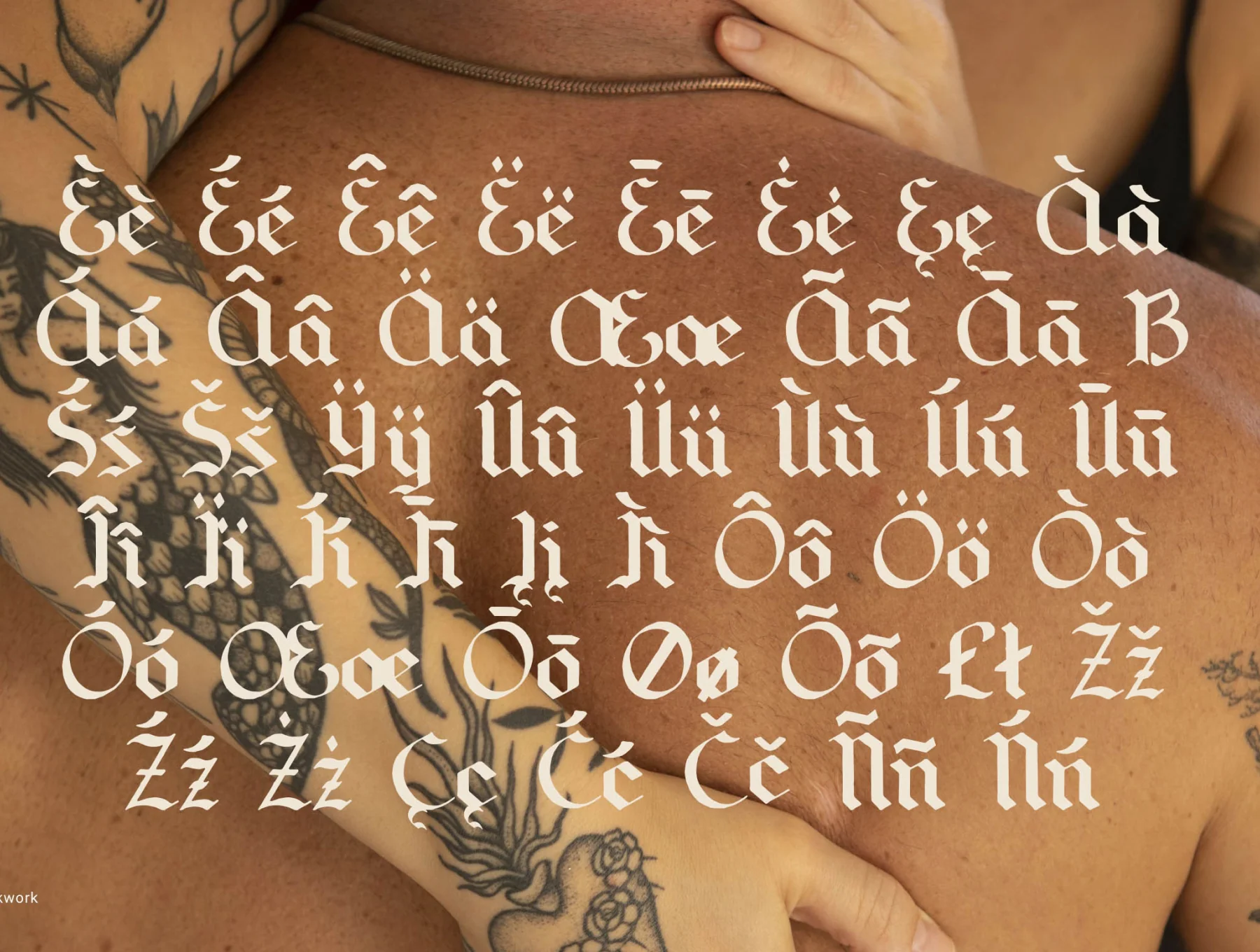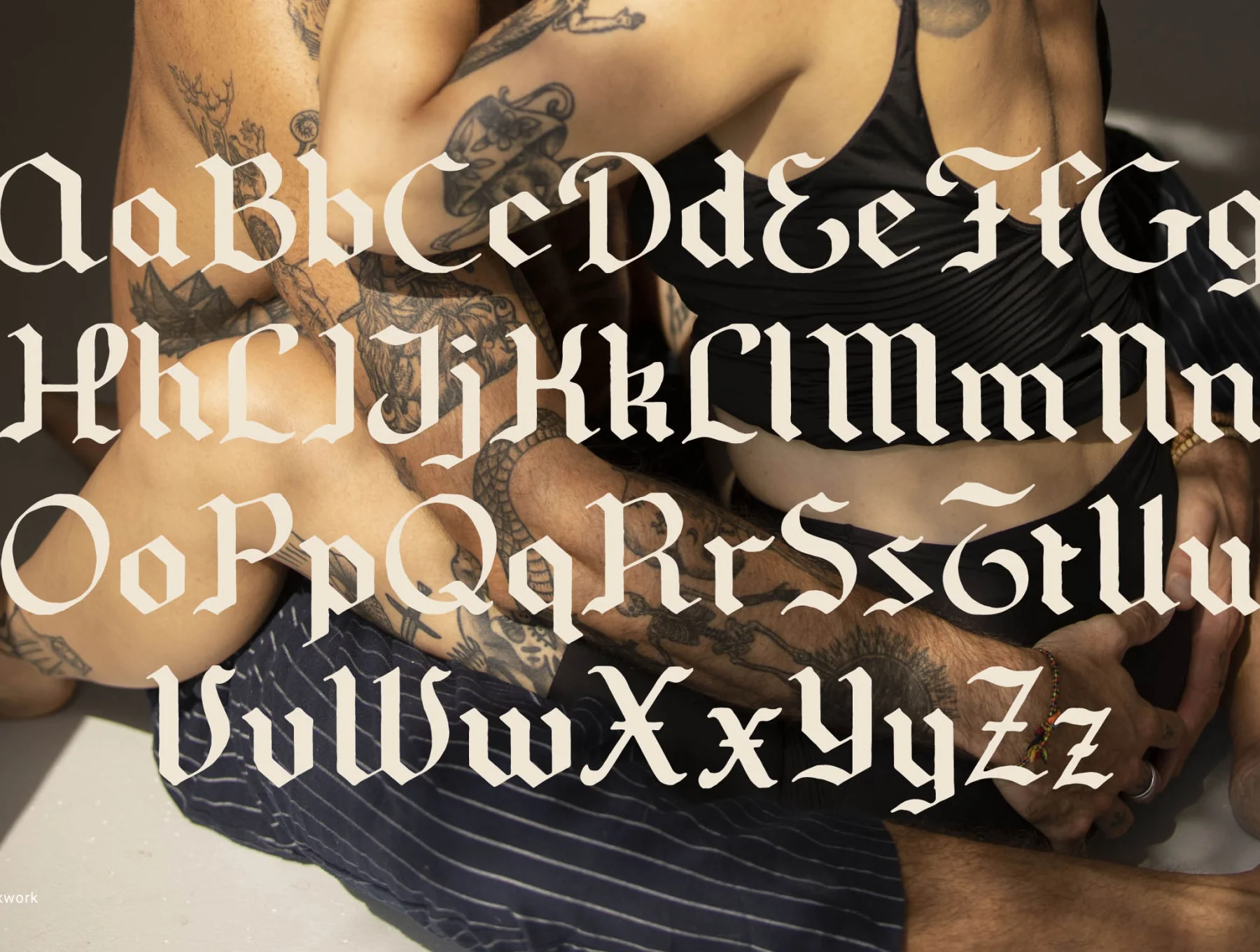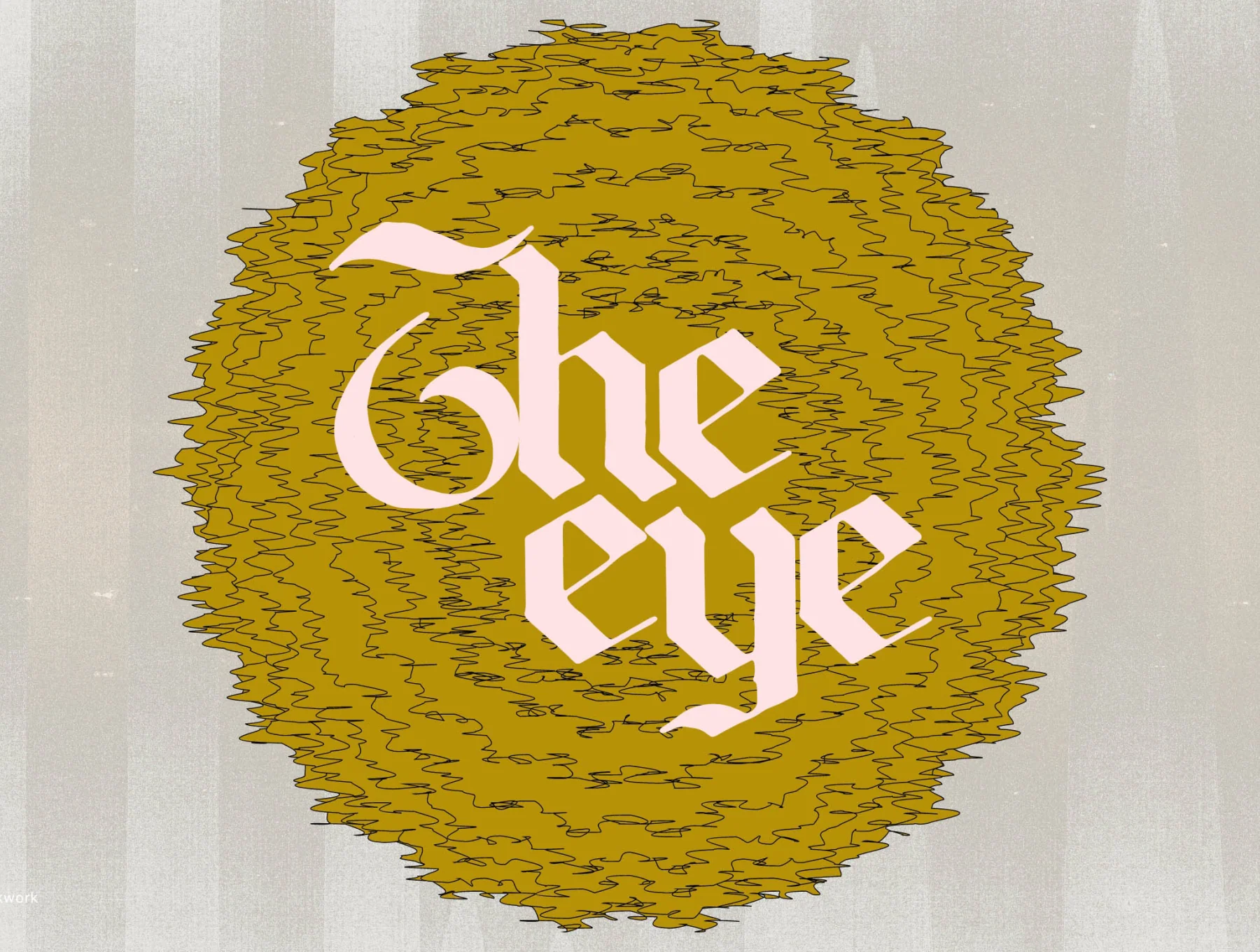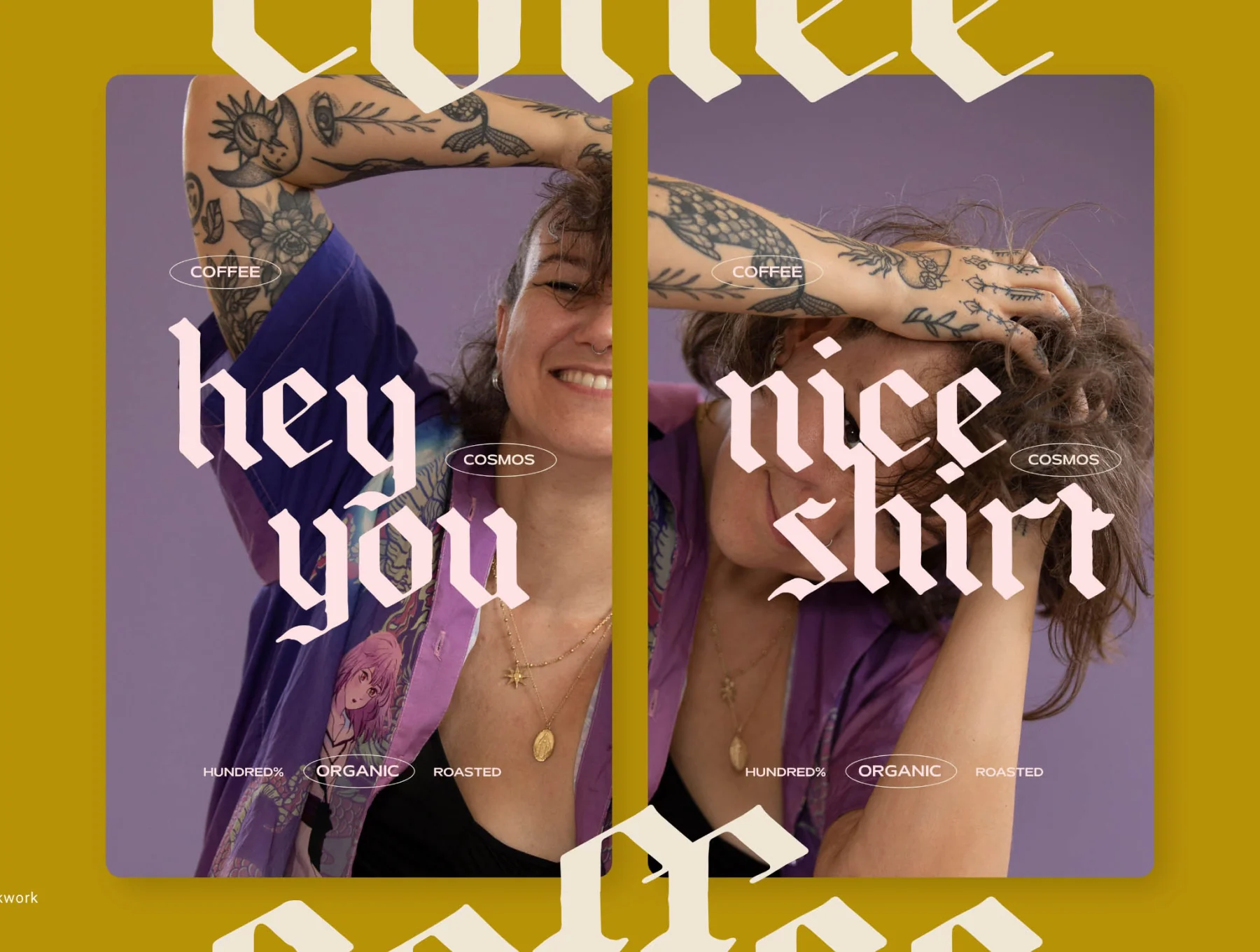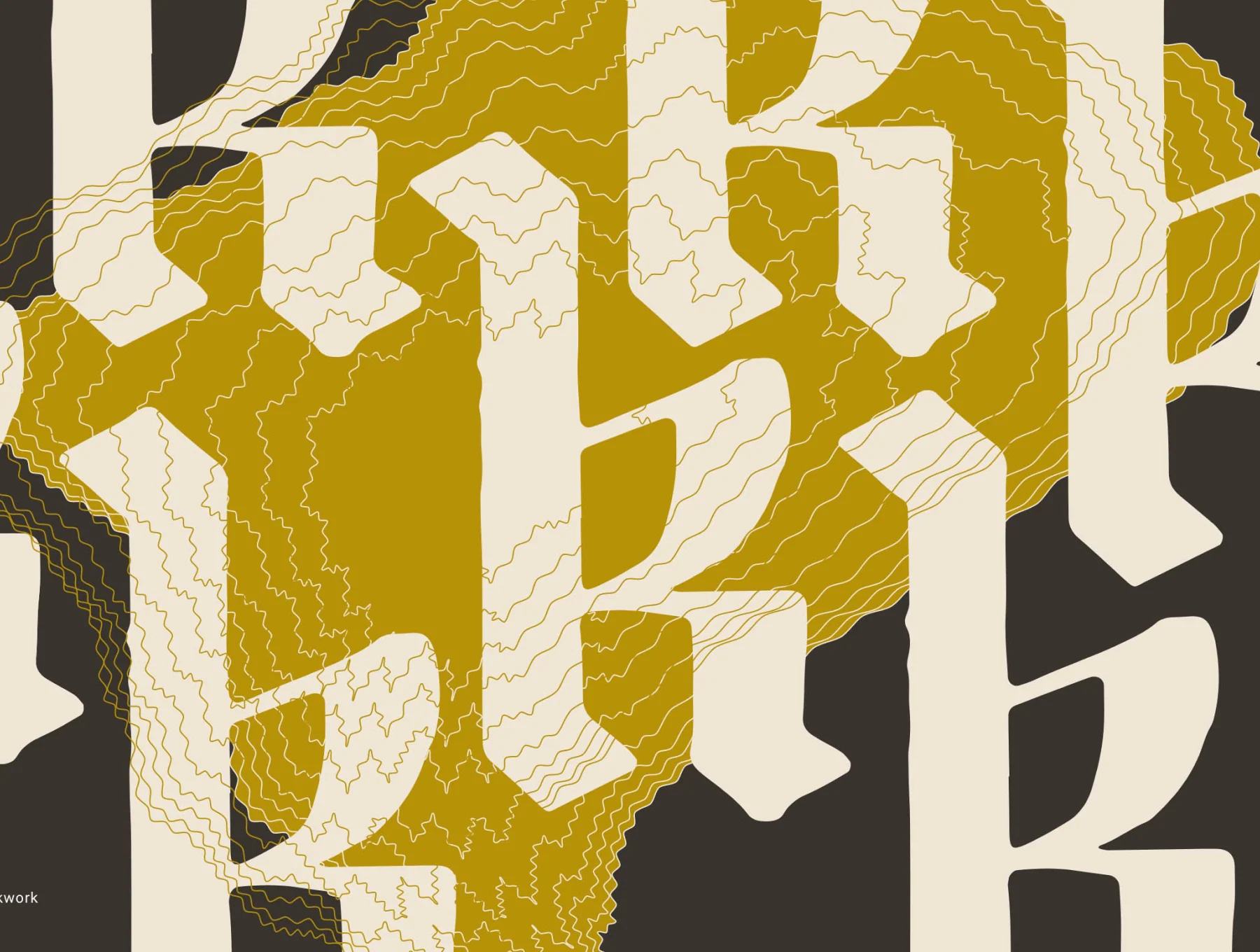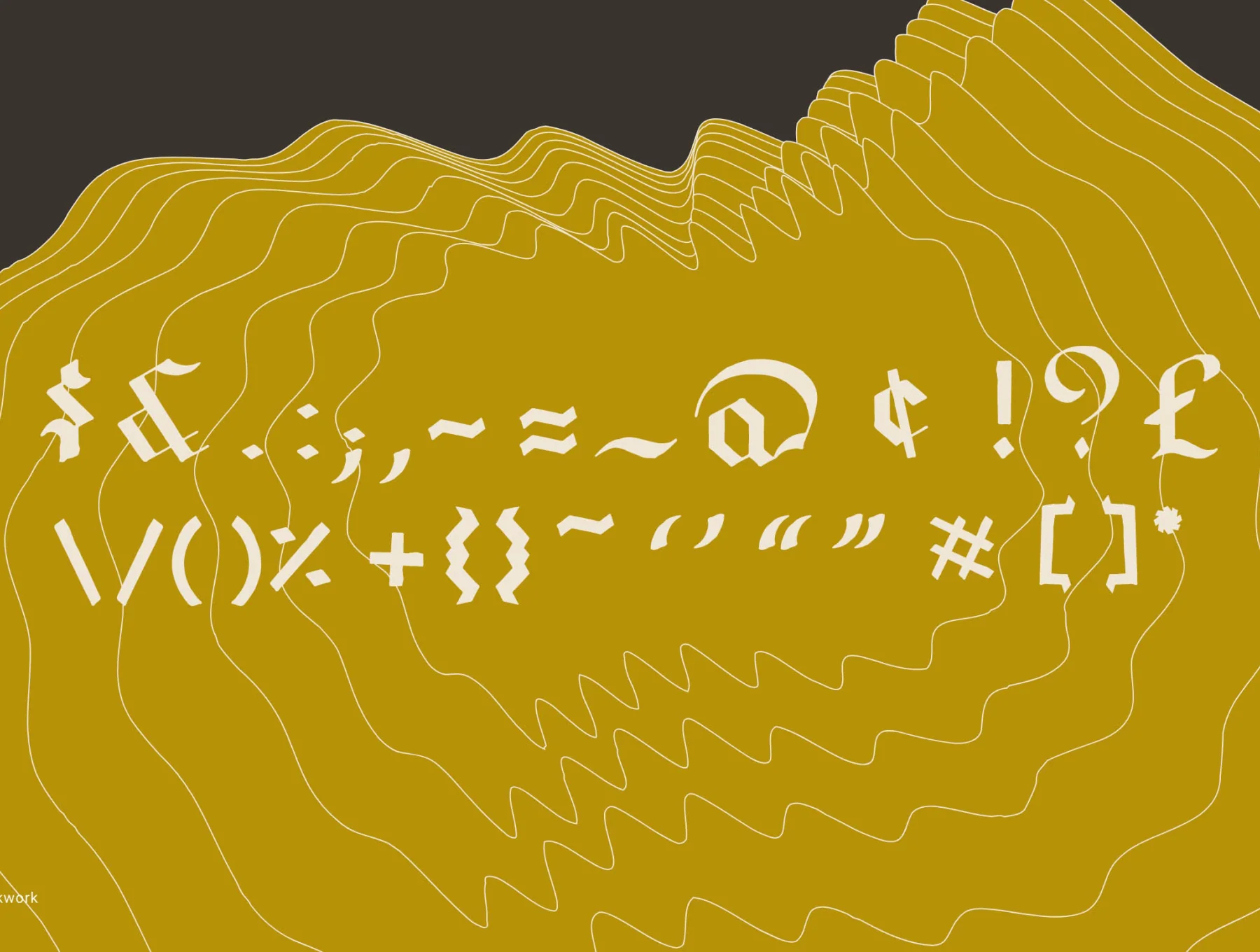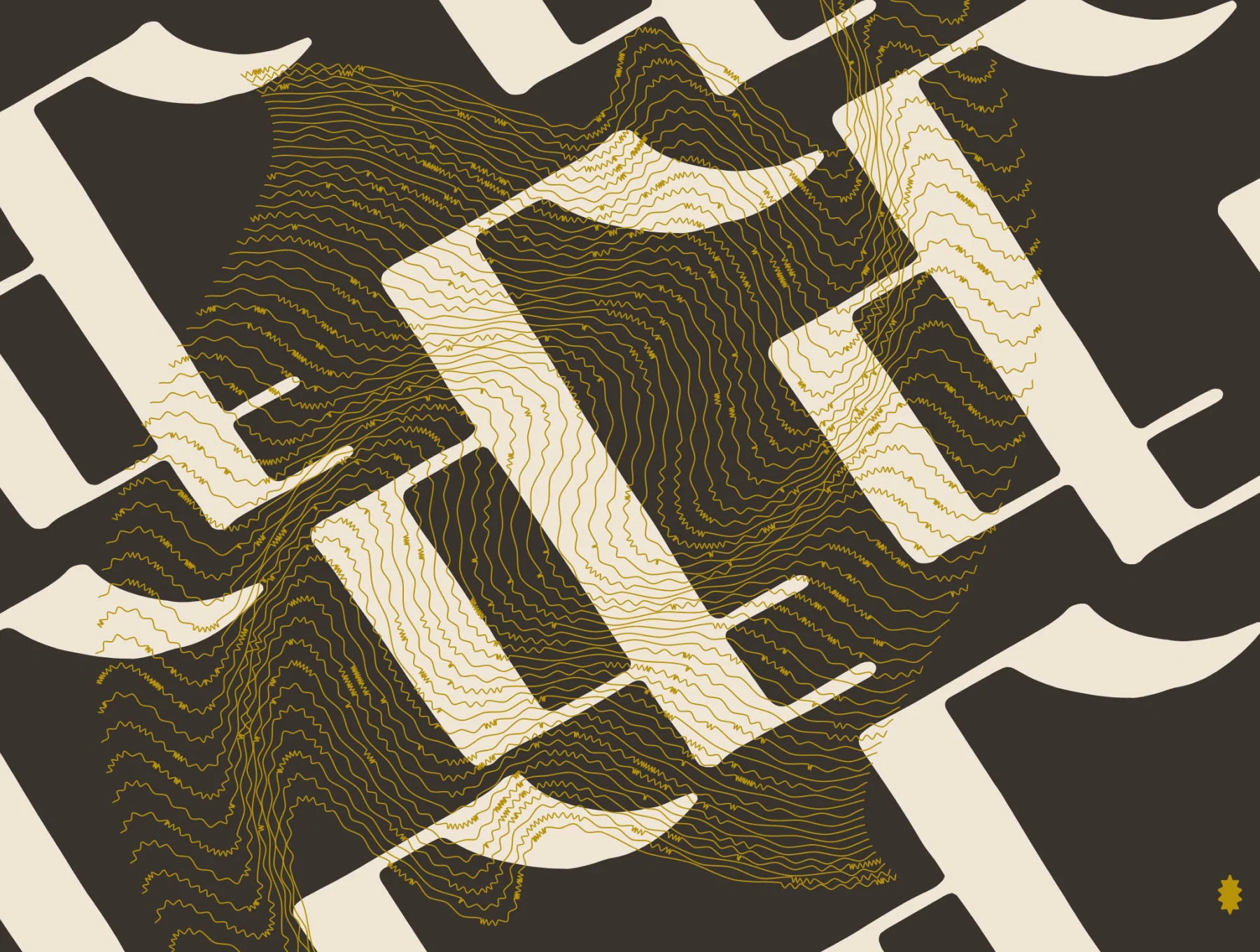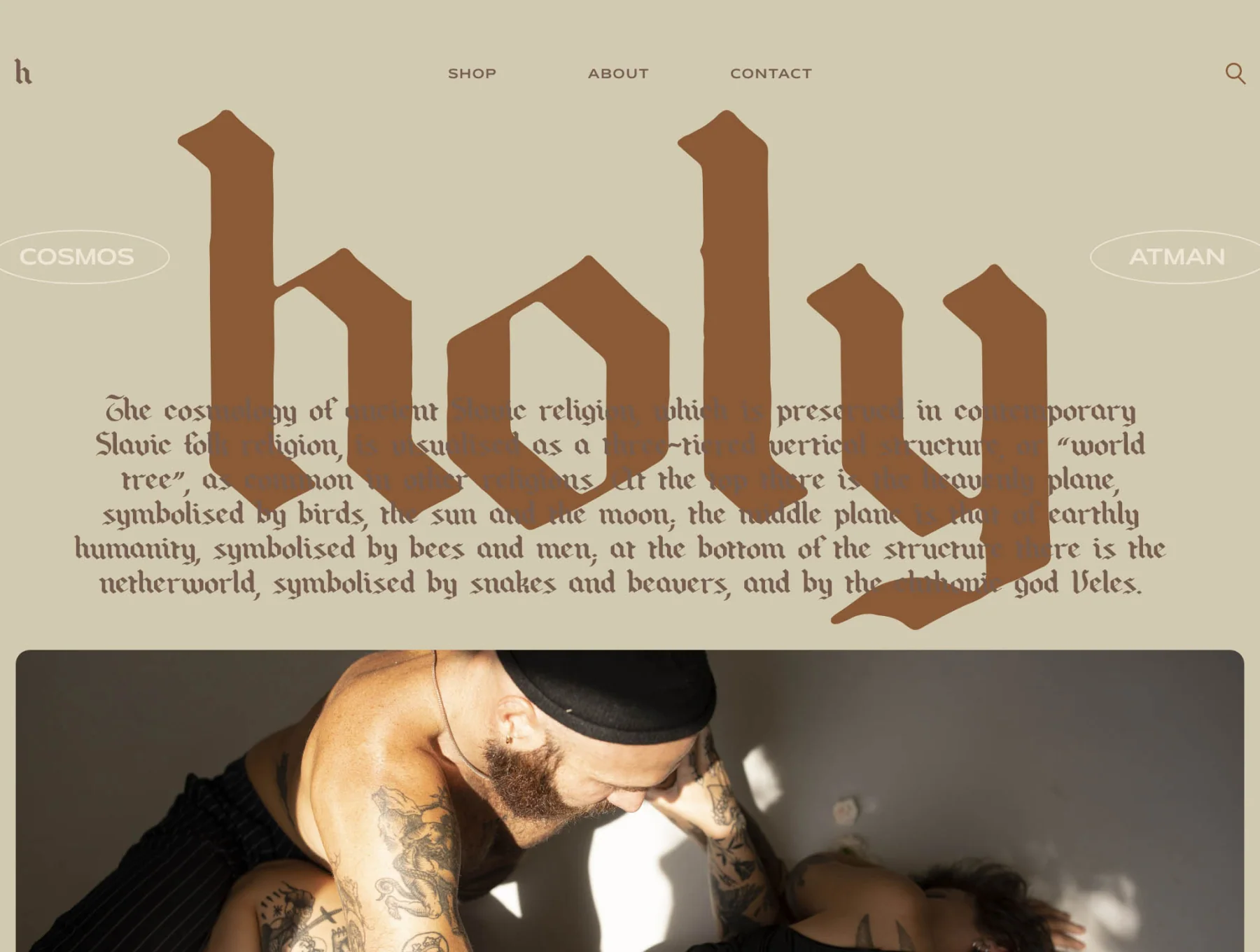
Blackwork Regular Font
Meet Blackwork, a striking blackletter typeface with bold style.
Symbols and numerals
Upper and lower case
Multiple language support
Blackwork is a striking blackletter typeface with rounded forms and an authentic hand-drawn character. Ideal for eye-catching typography, it suits logos, branding, invitations, social posts, and more. Its strong style grabs attention, while softened edges keep it friendly.